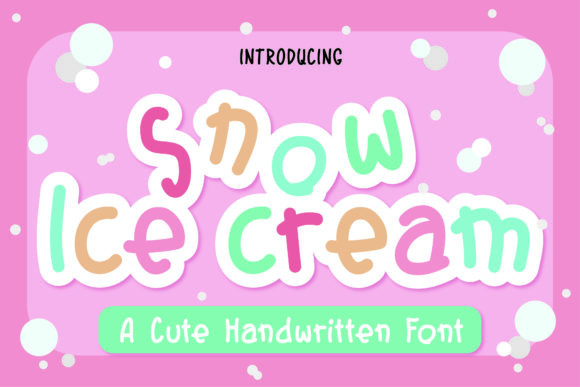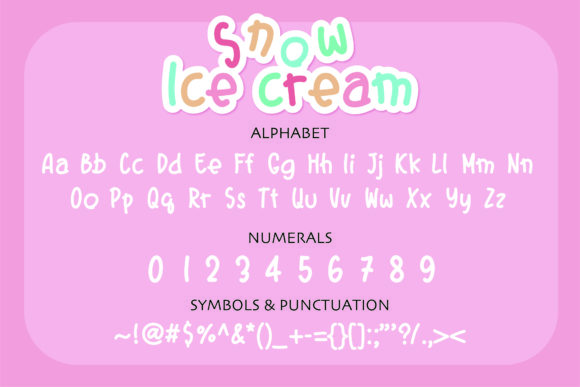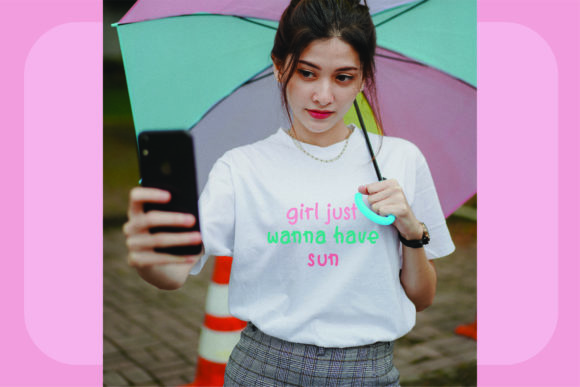
About Snow Ice Cream Font
Snow Ice Cream is a lovely handwritten font. Get creative with its bouncy, charming style and add it to each of your inspired ideas. It looks stunning on wedding invitations, thank you cards, quotes, greeting cards, logos, business cards, and every other design which needs a handwritten touch.